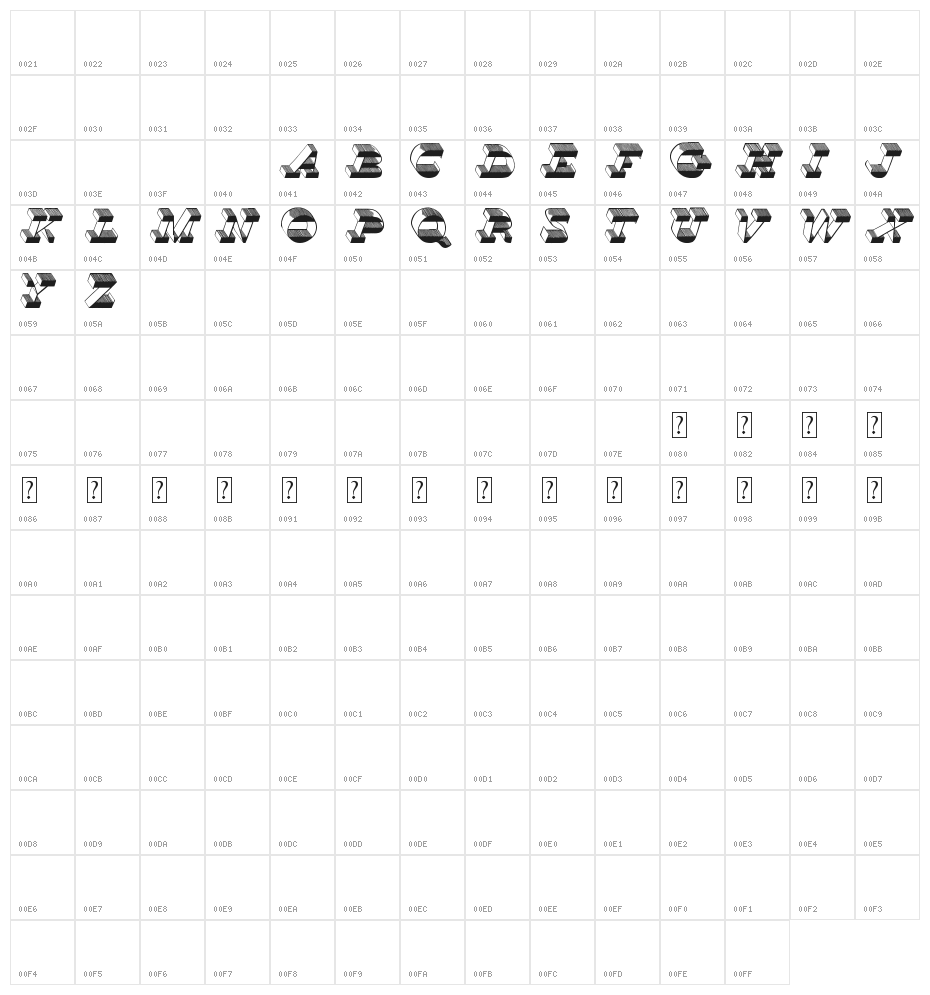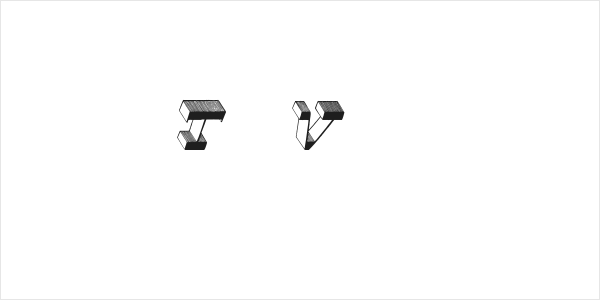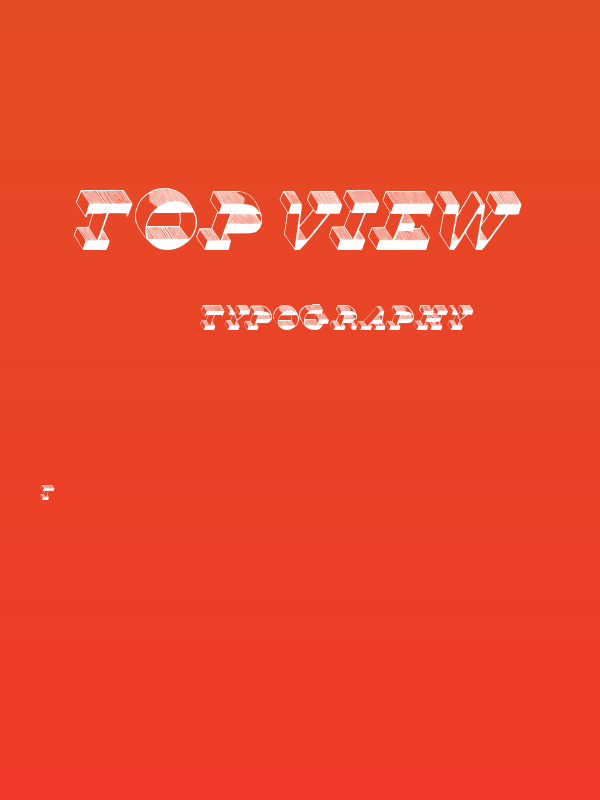
Top View Font
Top View Description
This font features a bold, three-dimensional design with a distinct shadow effect, giving each character a sense of depth and solidity. The letters are constructed with a blocky, geometric style, incorporating sharp angles and clean lines. The shading adds a dynamic, almost industrial feel, making it stand out in any design. The uppercase letters are uniform in height, maintaining a consistent visual flow across the alphabet. This font is ideal for creating eye-catching headlines or titles that require a strong visual impact.
| Proposed Projects | Ideal for posters, logos, and branding materials that require a strong, industrial aesthetic. |